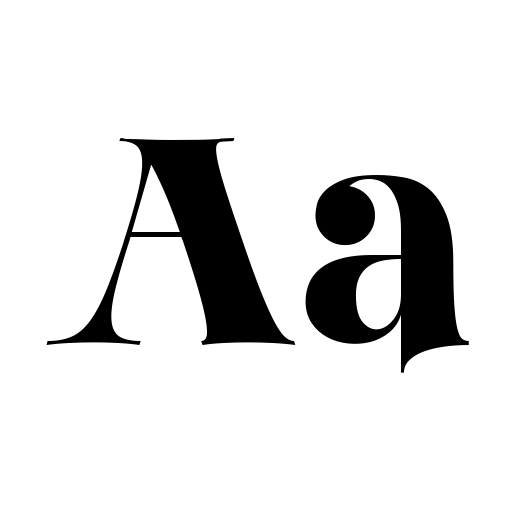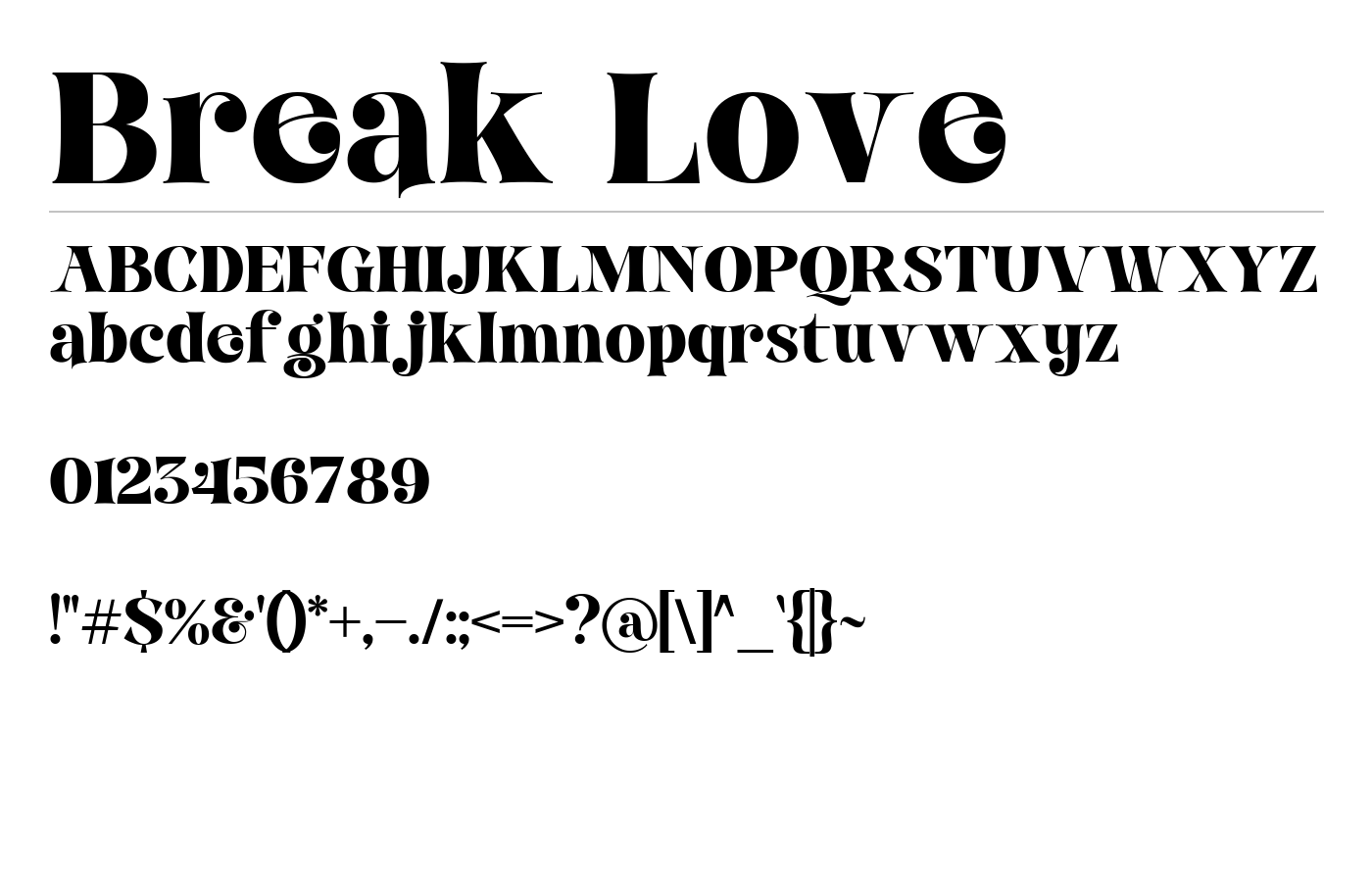
Break Love Font is a bold serif typeface with a playful yet elegant character, featuring high contrast between thick and thin strokes and unique, whimsical letterforms. Its strong serifs and artistic details give it a vintage, stylish feel, making it ideal for logos, headlines, and fashion branding that seek to convey sophistication with a creative twist. This font works well in projects that need a distinctive, eye-catching look while maintaining a classic and refined tone.
Break Love Font
About Break Love Font
| Designer | Pentagonistudio |